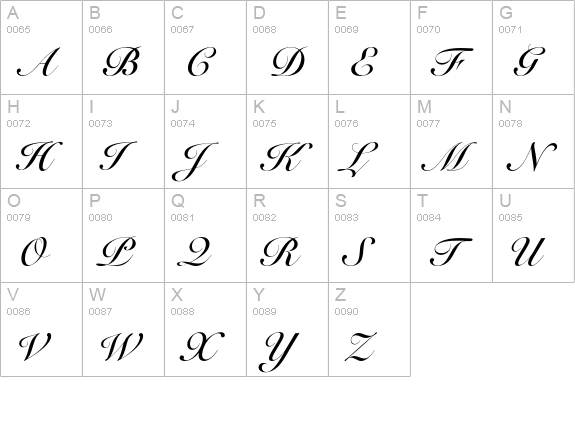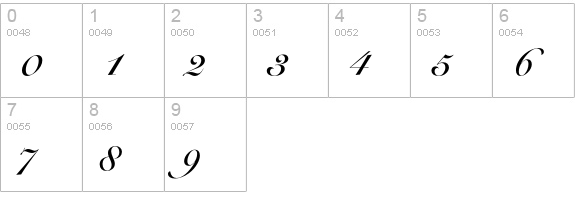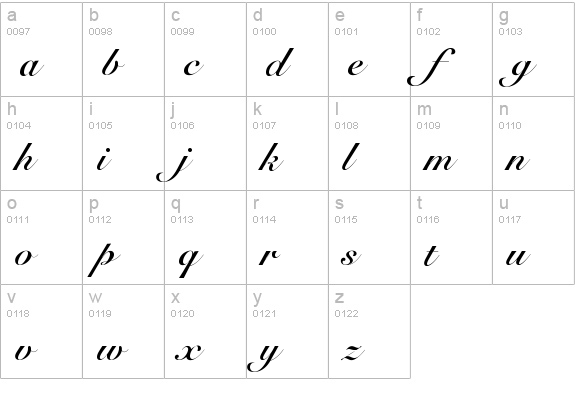
Snell Bold is a strong, high-contrast variant in the Snell typeface family \xE2\x80\x94 well suited to headlines, attention-grabbing titles, and strong calls-to-action.
Snell Bold is a captivating and powerful font that is sure to make a bold statement in any design project. Its thick and robust letterforms exude confidence and grab attention with their distinctiveness. With its strong presence and commanding presence, Snell Bold is perfect for headlines, titles, logos, and any other design element that needs to make a lasting impression. Its clean and precise lines ensure readability, even at smaller sizes, making it versatile for a wide range of applications. One of the best features of Snell Bold is that it is freely available to download at FontsMarket.com. This means that designers and creatives can easily access this incredible font without any cost or restrictions. Whether you're a professional designer or just starting out, Snell Bold offers you the opportunity to enhance your projects with a high-quality and visually striking font. The timeless appeal of Snell Bold ensures that it will remain a go-to choice for designers looking to add a touch of elegance and strength to their work. Its bold and confident nature makes it suitable for both digital and print designs, allowing you to create impactful designs across various mediums. In summary, Snell Bold is a free font that combines strength, elegance, and versatility to bring your designs to life. Download it today at FontsMarket.com and elevate your design projects with this exceptional font.